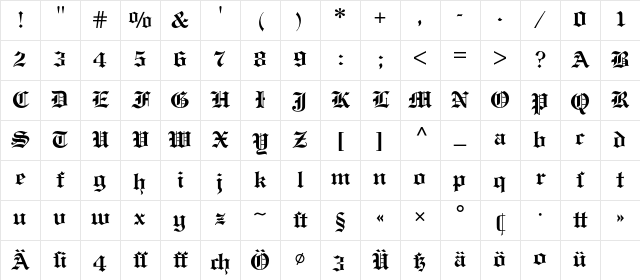
Engravers Old English BQ Regular
Engravers Old English BQ Family
Design Context for Engravers Old English BQ
Engravers Old English BQ is a composed and adaptable typeface that performs quietly and consistently across a wide range of design contexts.
Pro Tip: Use Engravers Old English BQ in both headline and body roles to test its range before committing to a single application.